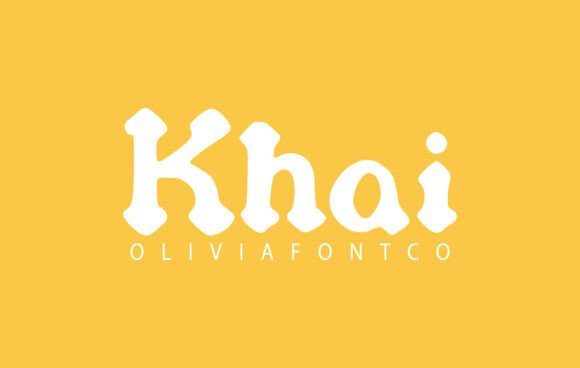
Khai Font: Authentic Handwritten Style for Crafters
Using Khai Font for Romantic Wedding Stationery and Invitations
When designing wedding suites, Khai font is an authentic handwritten font with a romantic touch that instantly elevates the perceived value of your stationery products. As creators in the wedding niche, we know that couples are searching for typography that feels personal yet polished, and this specific typeface delivers that balance beautifully. While many fonts in the Slab Serif category can feel heavy or industrial, Khai retains a softness that makes it ideal for invitation headers, place cards, and welcome signs. The legibility is paramount here; unlike overly ornate scripts that become unreadable at smaller sizes, this font maintains clarity even when printed on textured cardstock or vellum overlays.
For printable product creators, using Khai allows you to offer templates that look custom-designed rather than generic. The authentic flow of the letterforms mimics high-end calligraphy without requiring hours of hand-lettering for every single name. This efficiency is crucial when fulfilling bulk orders for seating charts or escort cards. Because the font is expertly designed to be a true favorite among designers, it pairs exceptionally well with minimalist sans serif body text, allowing the romantic elements of Khai to shine as the focal point. Whether you are creating digital downloads for DIY brides or printing physical suites for luxury clients, this font provides the emotional resonance necessary for matrimonial branding.
Khai Font for Handmade Product Labels and Packaging Design
Small business owners and Etsy sellers will find that Khai serves as a powerful tool for establishing brand identity across physical merchandise and packaging. Fonts play a critical role in how customers perceive the quality of handmade goods, and Khai offers a boutique aesthetic that suggests care and craftsmanship. When applied to candle labels, soap wrappers, or jewelry tags, the handwritten nature of the typeface reinforces the "made with love" narrative that drives sales in the artisan market. It is particularly effective for short product names or taglines where readability and charm must coexist.
From a production standpoint, legibility is non-negotiable for product labeling. You need a font that remains distinct when scaled down to fit a 2-inch sticker or a narrow hang tag. Khai’s structure ensures that characters do not bleed into one another during printing or cutting, which reduces waste and frustration during the fulfillment process. For those selling in competitive niches like organic skincare or farmhouse home decor, this font helps differentiate your items from mass-produced alternatives. It strikes a rare balance in the Slab Serif and display font landscape by offering enough weight to stand out on kraft paper while retaining the delicate, romantic touch that appeals to your target demographic.
Creating Readable Wall Art and Digital Printables with Khai
Digital download sellers and printable artists can leverage Khai to create wall art that resonates emotionally with buyers looking for nursery decor, inspirational quotes, or personalized family prints. In the realm of digital products, Fonts must translate perfectly from screen to print, and Khai’s authentic handwritten style bridges that gap seamlessly. Customers often hesitate to purchase digital art if the typography looks too rigid or computer-generated; this font alleviates that concern by providing organic, human-centric letterforms that feel like original artwork. Its versatility allows it to function as both a primary display font for large-scale posters and a complementary accent for smaller desk prints.
When designing for platforms like Etsy or Creative Market, consider how Khai interacts with negative space. The open counters and balanced spacing make it highly readable even when overlaid on watercolor backgrounds or photographic textures. This is essential for creating versatile templates that end-users can customize without breaking the design. Furthermore, because the font has the potential to take your creative ideas to the highest level, it encourages experimentation with layout and hierarchy. Try using all-caps for modern, bold statements or mixed case for softer, more traditional aesthetics. This flexibility increases the commercial viability of your digital assets, as one font license can yield dozens of unique, sellable designs.
Cutting Machine Compatibility and Vinyl Decal Projects
For Cricut and Silhouette users, selecting Khai for vinyl projects requires understanding how its authentic handwritten forms translate to adhesive materials. Not all Fonts are created equal for cutting machines; intricate serifs or disconnected strokes can lead to weeding nightmares and failed transfers. However, Khai is designed with practical application in mind, making it a reliable choice for car decals, laptop stickers, and custom tumblers. The stroke width is generally consistent enough to hold together during the weeding process, while the romantic curves add a premium feel to what could otherwise be a simple text decal.
When preparing files for cutting, always test the font at your intended size before committing to expensive vinyl or transfer tape. While Khai is legible and robust, extremely small sizes may require slight adjustments to letter spacing or line thickness to ensure clean cuts. For multi-layered designs, this font pairs beautifully with solid block letters or simple shapes, creating depth without visual clutter. Crafters producing seasonal items, such as holiday ornaments or personalized gift tags, will appreciate that Khai maintains its character across various substrates, including glitter vinyl, holographic film, and permanent adhesive. Its adaptability makes it a staple in the workshop for makers who demand both beauty and functionality in their typeface choices.
Font Pairing Strategies and Commercial Licensing for Khai
To maximize the impact of Khai in professional design work, understanding effective font pairing is just as important as mastering the typeface itself. Fonts rarely exist in isolation, and Khai’s romantic, handwritten personality demands a supportive partner that grounds the composition without competing for attention. A clean, geometric sans serif works best for body copy, providing a modern contrast that enhances the vintage warmth of Khai. Alternatively, pairing it with a structured Slab Serif for subheadings can create a cohesive, heritage-inspired look suitable for artisan food brands or historical society publications. The key is to let Khai serve as the expressive voice while other typographic elements handle the informational heavy lifting.